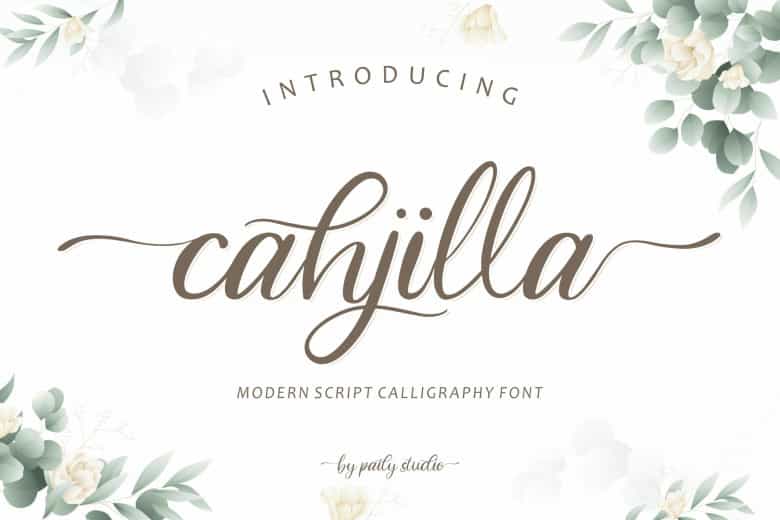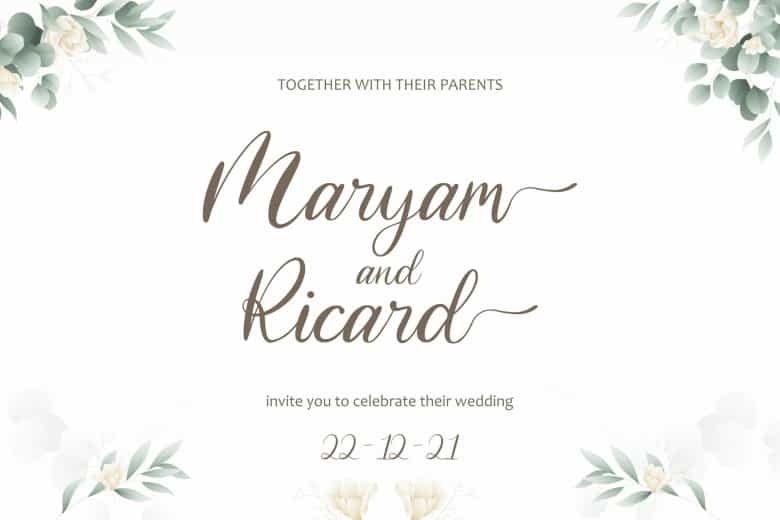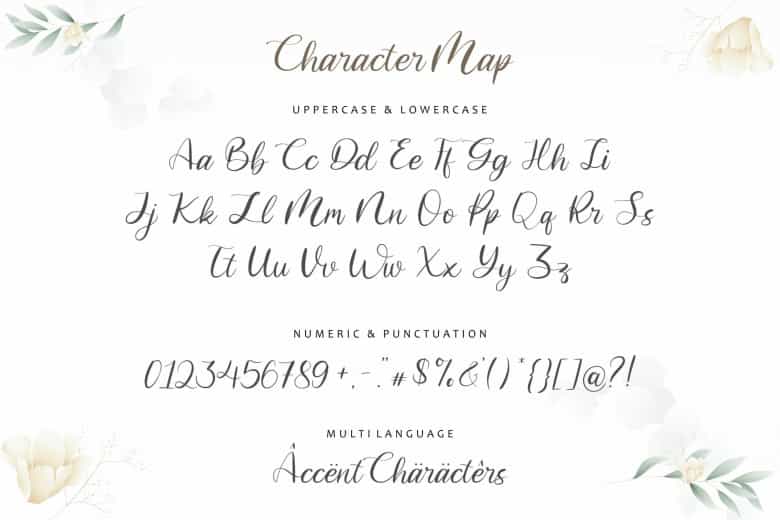
Cahjilla Calligraphy Font is a delicate script typeface. Crafted to perfection and featuring exquisite details, this font will add depth and beauty to any subject matter imaginable – an invaluable asset in your font library collection that can enhance any work!